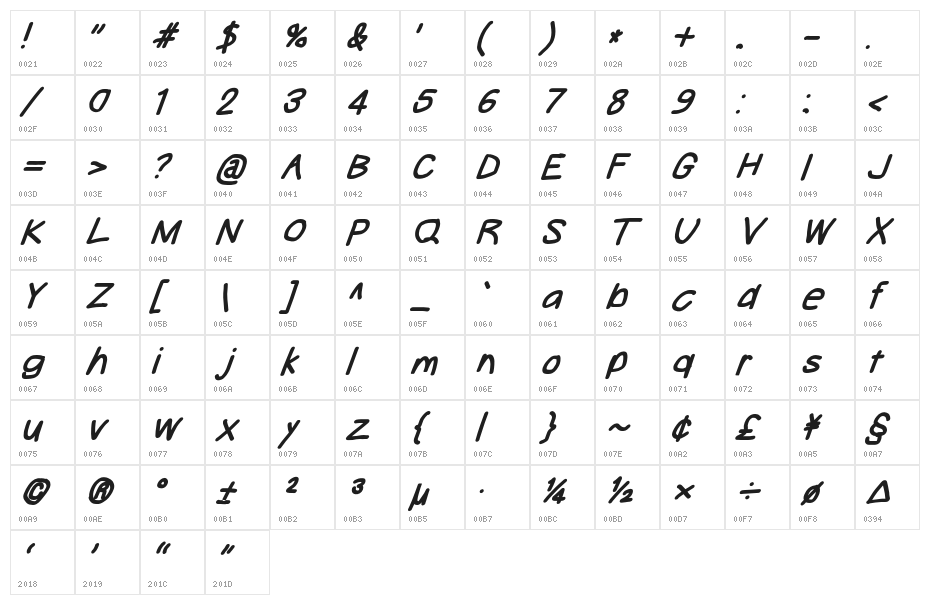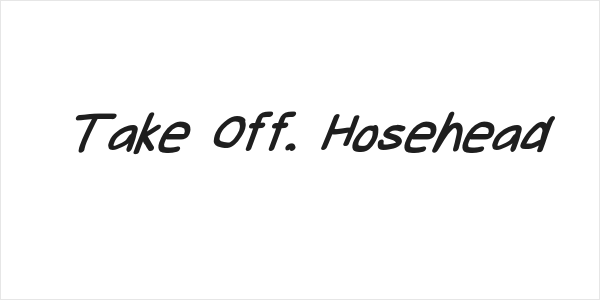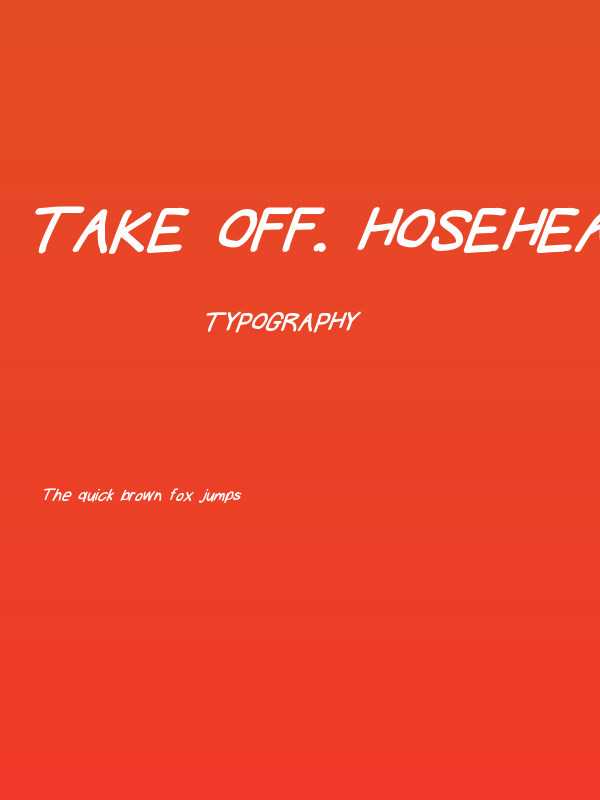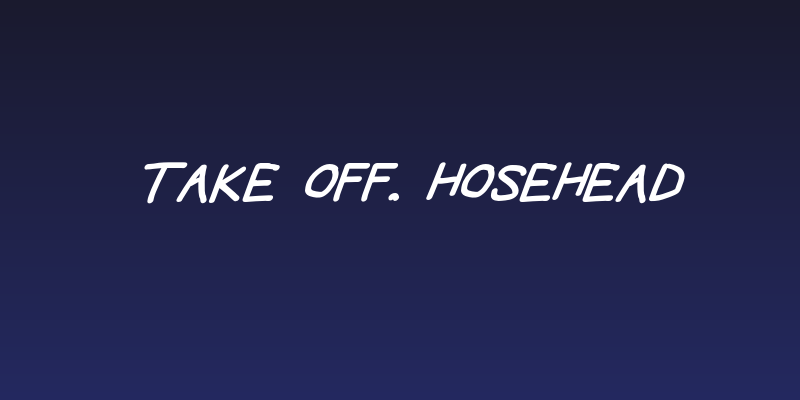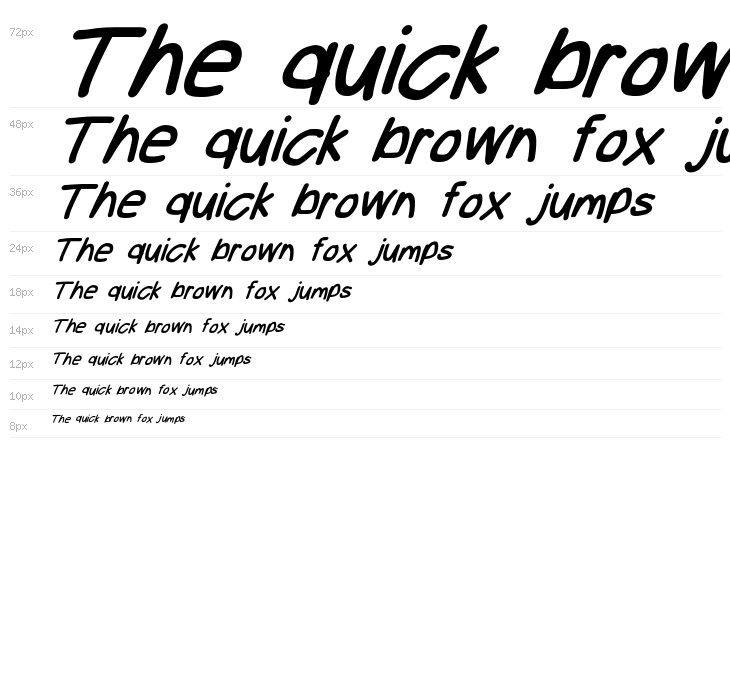
Take Off, Hosehead Font
This font exudes a playful and energetic vibe with its handwritten style, characterized by smooth, flowing curves and a slightly slanted orientation. The letters are bold and rounded, giving a sense of friendliness and approachability. The uppercase and lowercase letters maintain a consistent style, with a casual, informal appearance that suggests movement and dynamism. The numbers and special characters are equally expressive, maintaining the same lively and bold aesthetic. This font is perfect for projects that require a personal touch or a sense of fun and creativity.
Overall StylePlayful
Use CaseLogos, Headlines, Informal Text
Proposed ProjectsIdeal for children's books, playful branding, casual invitations, and creative posters.